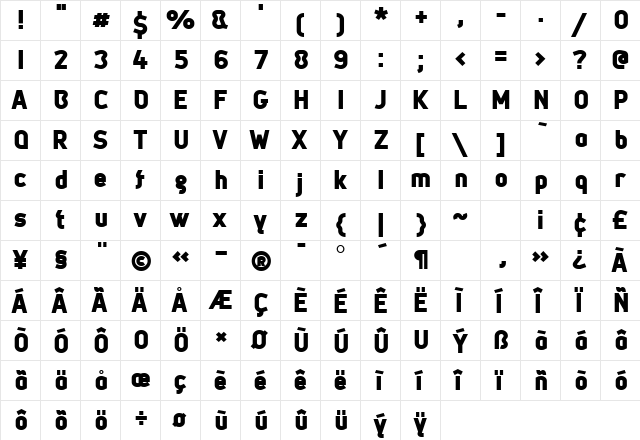
MetsysBlack Regular
Design Context for MetsysBlack Typeface
MetsysBlack is a composed and adaptable typeface that performs quietly and consistently across a wide range of design contexts.
Pro Tip: Pair MetsysBlack with a font of contrasting weight or personality to build a more expressive typographic hierarchy.